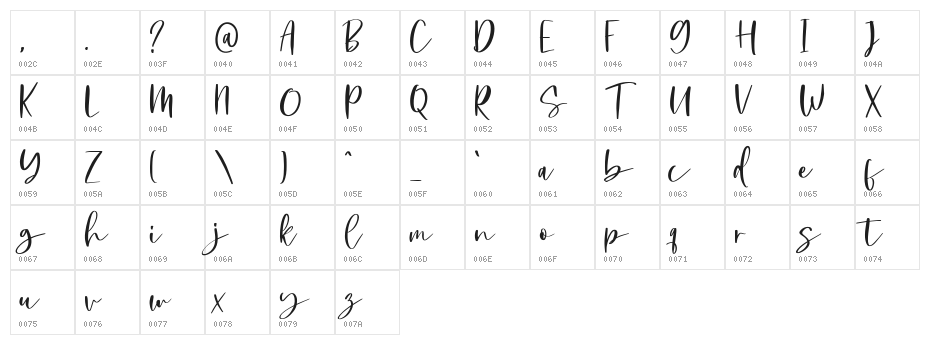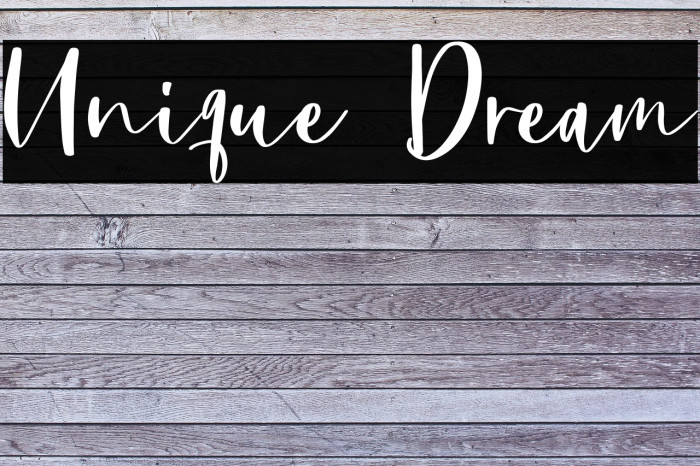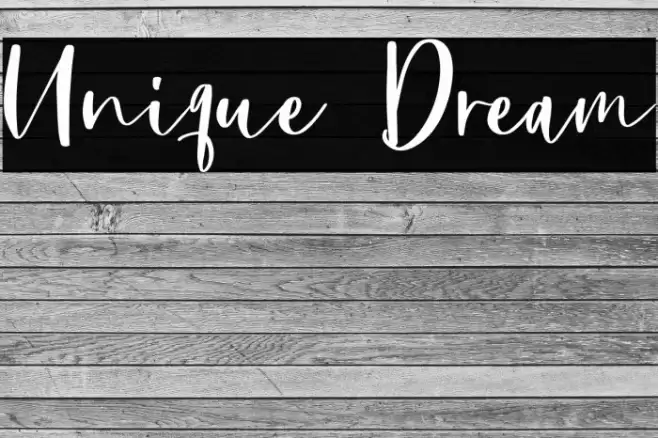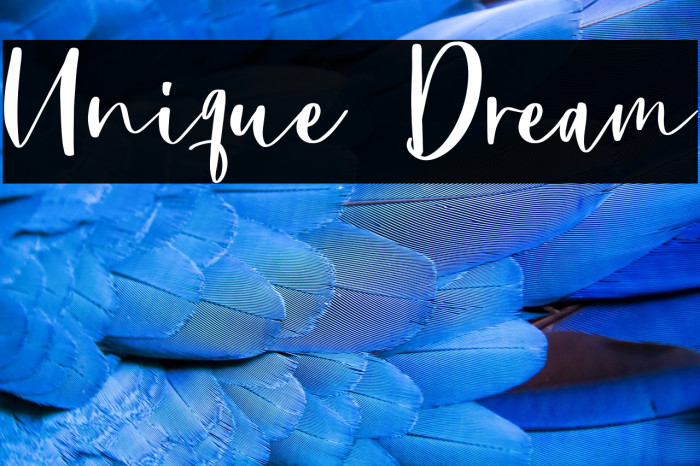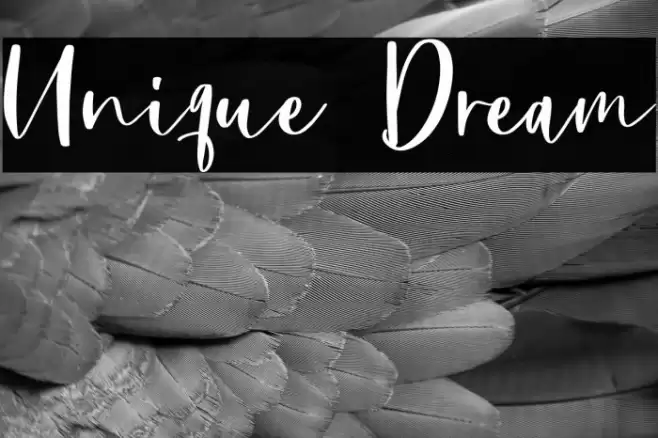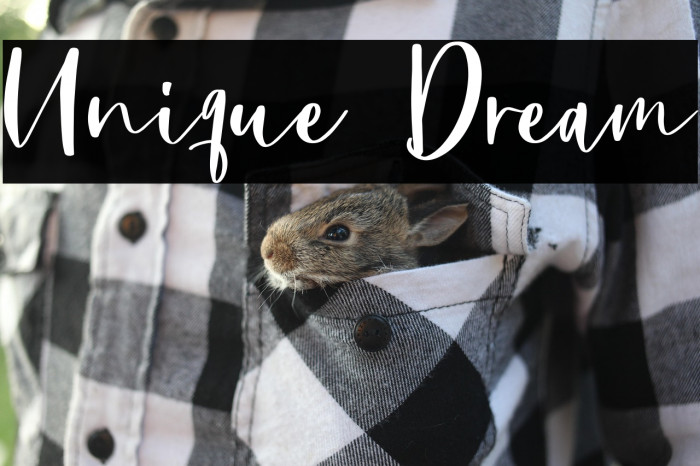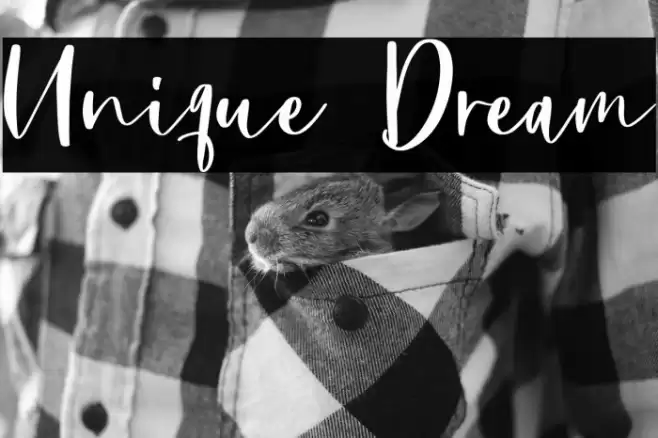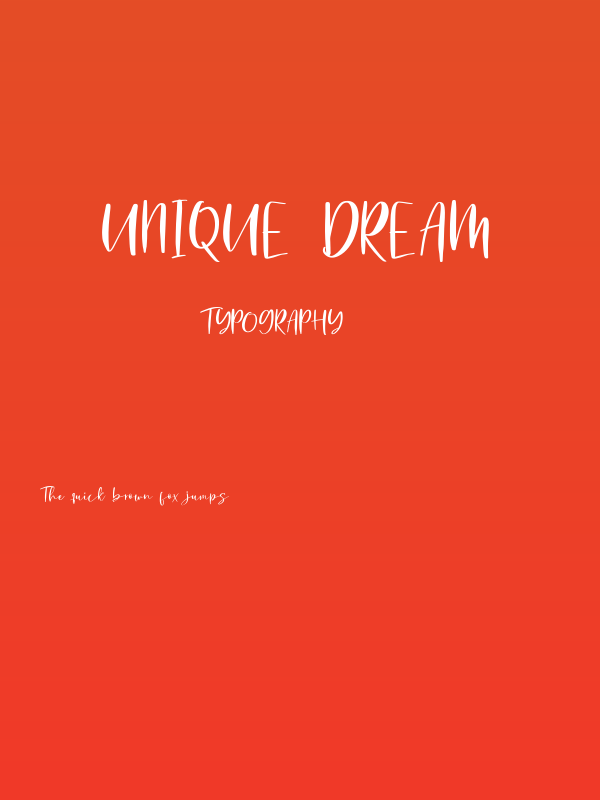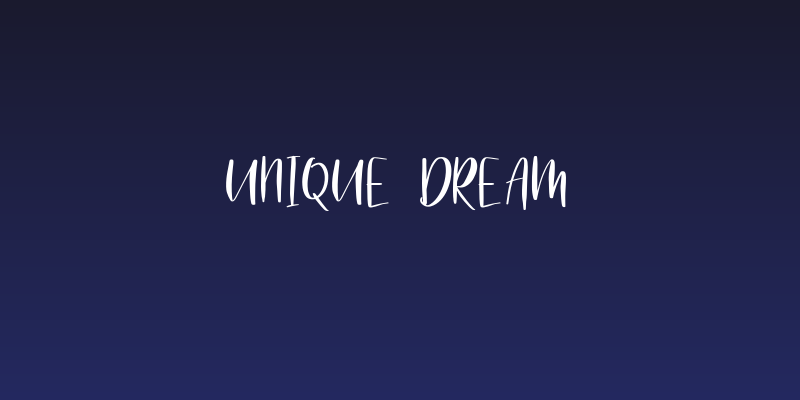
Unique Dream Font
Unique Dream Description
This font features a lively and expressive handwritten style, characterized by its fluid and dynamic strokes. The uppercase letters are bold and slightly elongated, giving a sense of movement and energy. The lowercase letters maintain a consistent flow, with some characters featuring playful loops and curves. The overall appearance is casual yet elegant, making it suitable for creative and artistic projects. The font's unique charm lies in its ability to convey a personal touch, reminiscent of hand-drawn calligraphy. It is versatile enough to be used in various design contexts, from invitations to branding materials.
| Proposed Projects | Ideal for wedding invitations, greeting cards, branding, and social media graphics. |